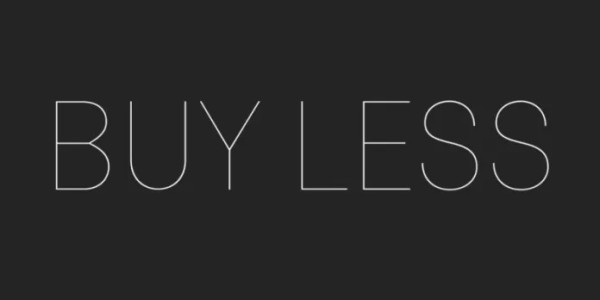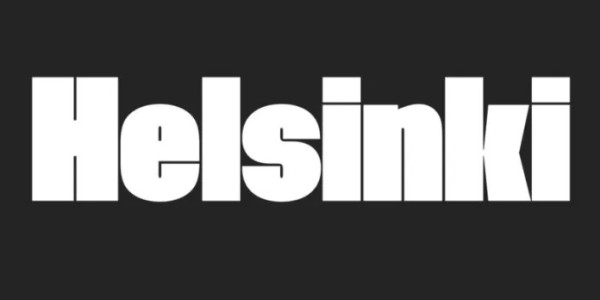
Helsinki XXL Font
Helsinki XXL Font by Ludwig Übele is a strong geometric sans serif font that looks incredible. Inspired by the Finnish traffic sign typeface. It is based on geometric shapes, with technical and masculine forms. Helsinki is quite narrow, which makes it well suited to headlines and short texts.